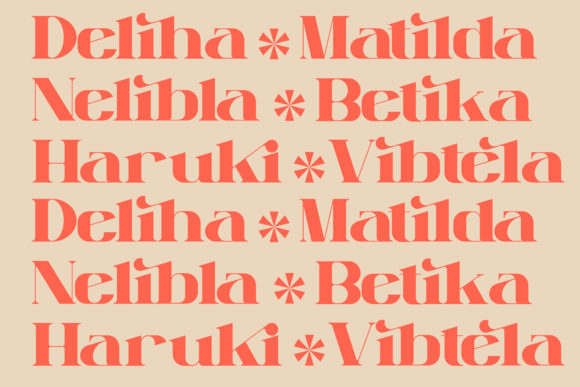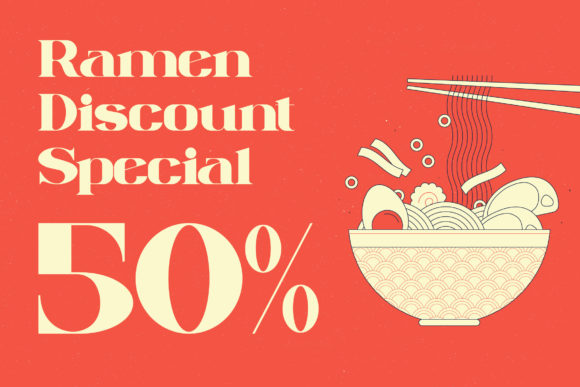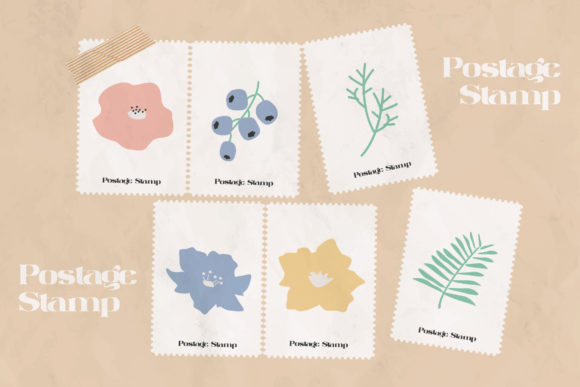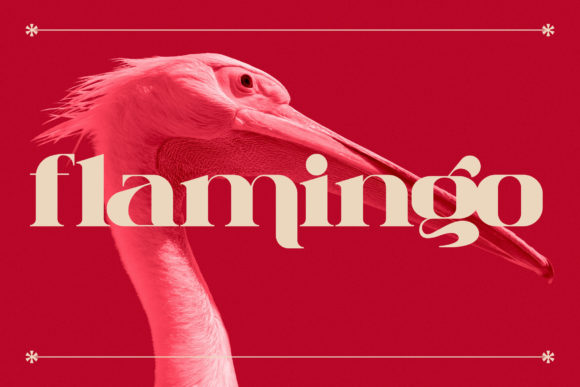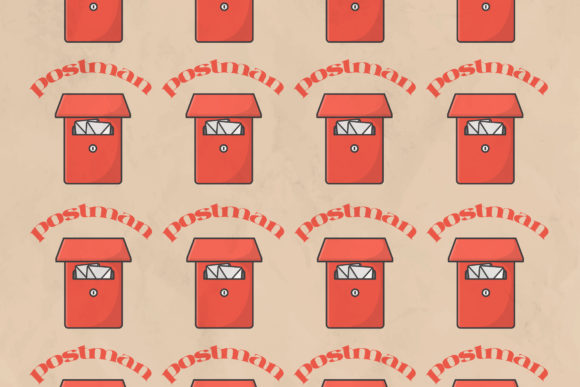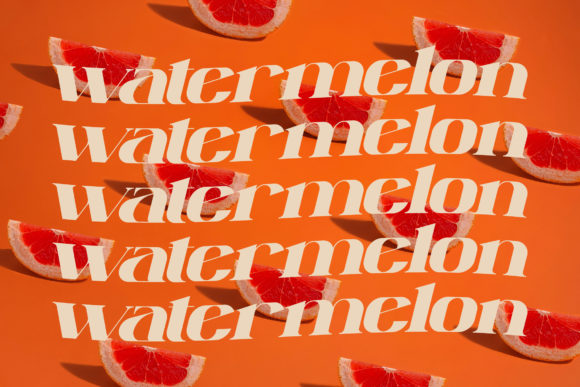
Introduction to Milgnite Font
Milgnite is a modern and classic serif font with a unique style and ravishing looks.
This typeface is perfect for an elegant & luxury logo, book or movie title design, fashion brand, magazine, clothes, lettering, quotes, and so much more This font is PUA encoded, which means you can access all of the glyphs and swashes with ease.